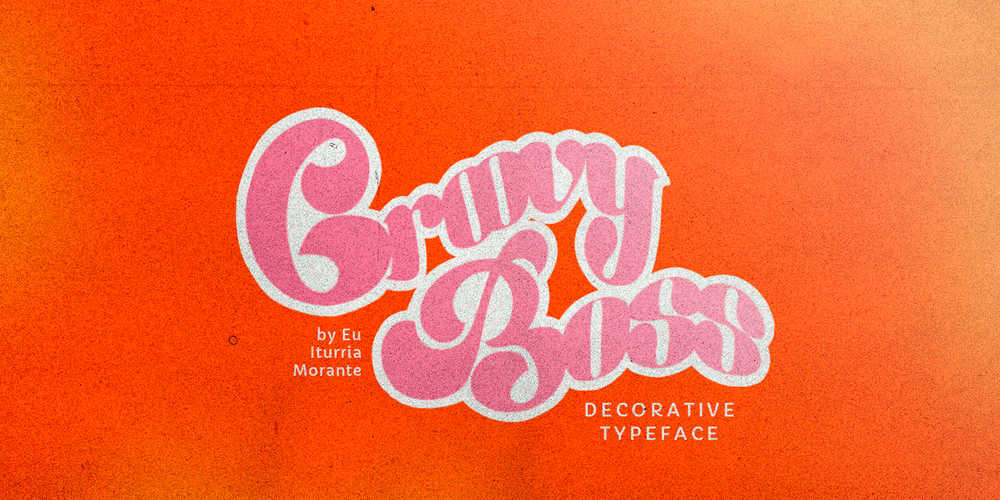
Groovy Boss
Groovy Boss font
Groovy Boss Font Family was designed by Eu Iturria Morante and published by Eu Iturria Morante. Groovy Boss contains 1 styles and family package options. Groovy Boss is a decorative type, inspired by the playful aesthetics from the 60s and 70s. Groovy and Boss were words used in those decades to refer to something as cool or trendy. Great for titles or short phrases, the curves and psychedelic forms of each letter will contribute to creating amazing compositions.